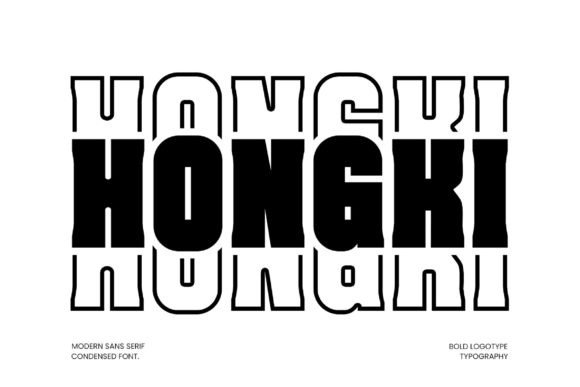
Introducing Hongki Font: The New Standard of Elegance and Style in Typography
In a world saturated with bland and uninspiring fonts, Hongki Font emerges as a breath of fresh air, a font family that captivates the senses and ignites the imagination. Perfectype, the creative force behind this masterpiece, has meticulously crafted a sans serif font that redefines beauty and sophistication in typography.
Hongki Font is more than just a collection of letters and symbols; it's an artistic expression that dances across your screen, leaving a trail of elegance and charm. Its modern and unique shape, coupled with a natural writing style, creates an instant connection with your audience, drawing them into your content and leaving a lasting impression.
With Hongki Font, you're not just downloading a font; you're unlocking a world of creative possibilities. Whether you're a seasoned designer or just starting, this font family empowers you to create stunning typographic designs that will elevate your branding, web design, editorial projects, prints, crafts, and quotes. Its versatility extends to logotypes, wedding invitations, romantic cards, labels, packaging, and even the spelling of names, adding a touch of sophistication and charm to every word.
Imagine your brand adorned with the timeless beauty of Hongki Font, your website exuding an air of professionalism and elegance, your editorial content captivating readers with its visual appeal, and your prints and crafts radiating a sense of uniqueness and artistry. It's not just a font; it's an investment in your creative vision, transforming your ideas into tangible works of art.
But what truly sets Hongki Font apart is its emotional resonance. Each letterform is infused with a sense of movement and grace, evoking feelings of joy, love, and inspiration. Your audience will not just read your words; they will feel them, immersing themselves in the emotions conveyed by the font's every curve and stroke.
Join the creative revolution and embrace the power of Hongki Font. Unleash your imagination and watch as your designs come alive with a vibrancy and allure that will captivate and inspire. With Hongki Font, you're not just creating content; you're creating experiences that touch hearts and leave an indelible mark on the world.